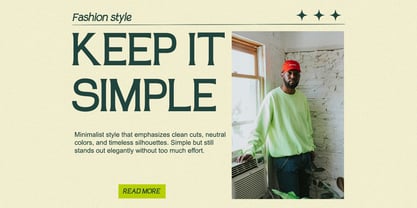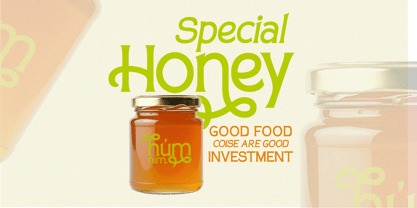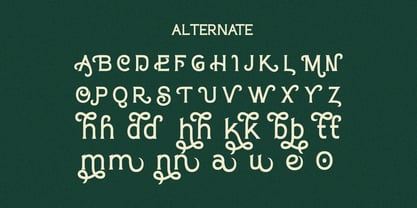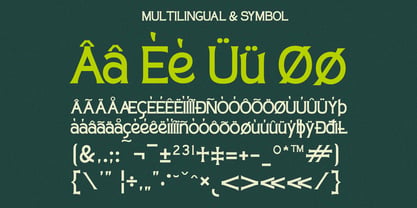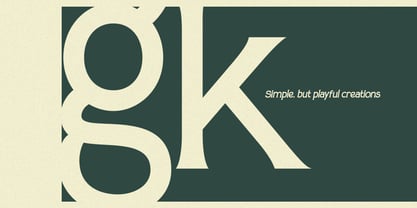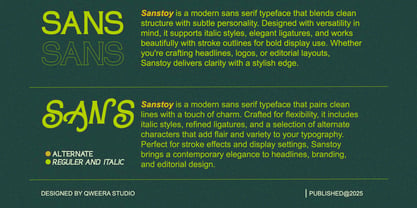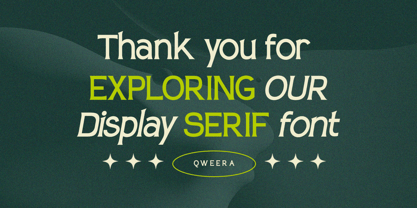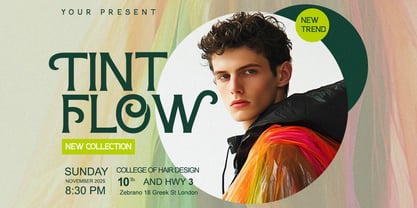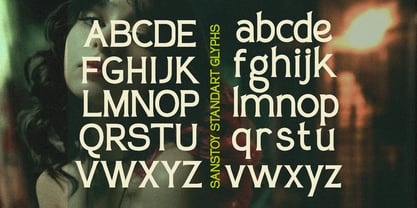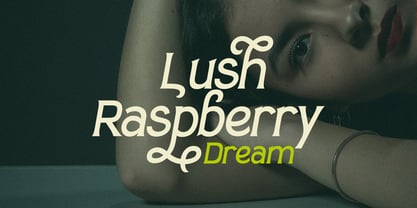
Sanstoy
by Qweera Studio
The Sanstoy Font Family was designed by Idhham Cholid Rikzano Yahya and published by Qweera Studio. Sanstoy contains 2 styles and family package options. More about this family
Sanstoy - Modern Luxury Stylish Serif Font for Premium Branding
Sanstoy is a breathtaking contemporary serif that redefines elegance with its sophisticated design. Featuring both Regular and Italic styles with premium alternates and ligatures, this font is expertly engineered for luxury branding, high-end logos, exclusive packaging, and editorial designs that demand both prestige and visual impact.
Where Contemporary Style Meets Timeless Luxury
With its sharp serif details and fluid italic variant, Sanstoy offers unmatched versatility for discerning brands. The meticulously crafted alternates and ligatures enable flawless typographic compositions that radiate exclusivity and modern refinement.
Premium Features Include:
• Luxury Serif Design – Sophisticated letterforms with fashion-forward details
• Dual Style Versions – Regular & italic for dynamic visual storytelling
• Exclusive Alternates – 30+ premium character variations
• Designer Ligatures – Seamless letter connections for couture typography
• Universal Application – From fragrance packaging to luxury lookbooks
• Extended Latin Support – Complete professional character set
Elevate Your Brand with Sanstoy's Haute Couture Typography Ideal for:
• Luxury fashion house branding
• High-end jewelry packaging
• Premium cosmetic campaigns
• Fashion editorial layouts
• Exclusive event promotions
Designers: Idhham Cholid Rikzano Yahya
Foundry: Qweera Studio